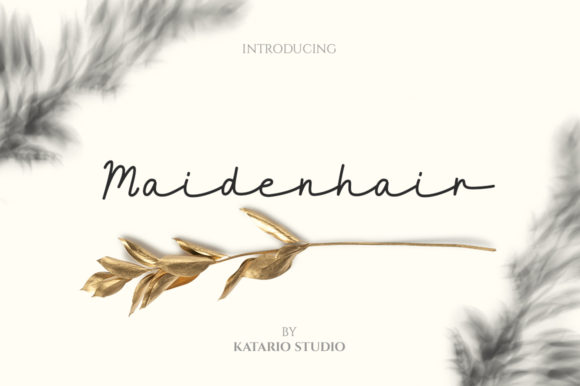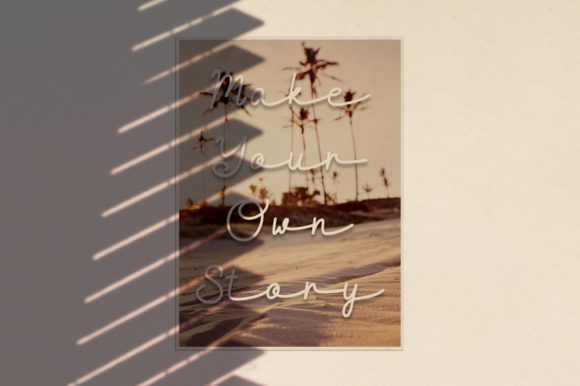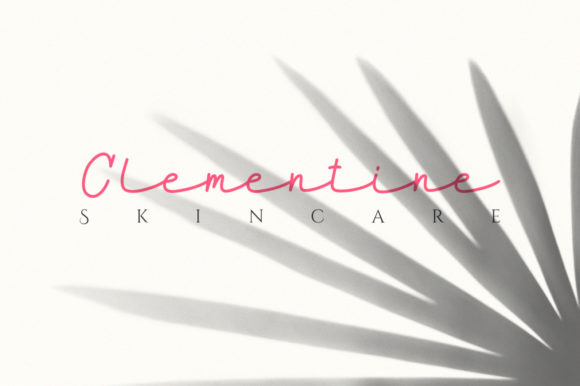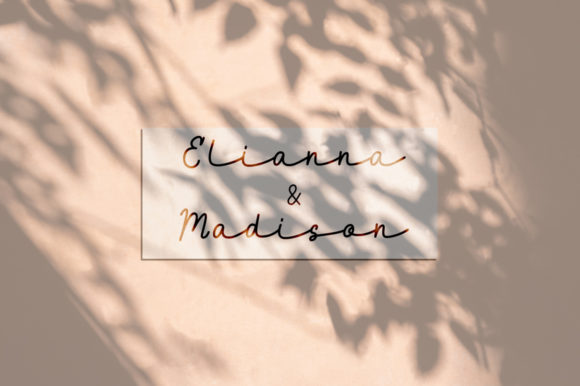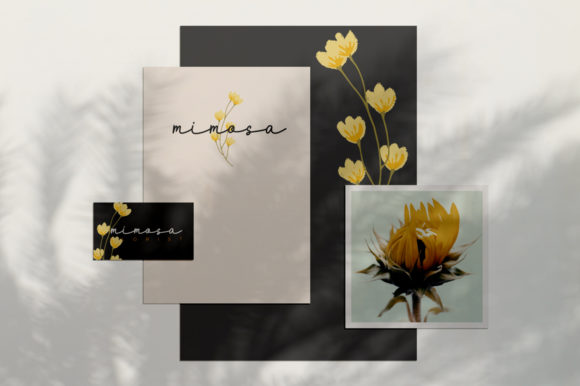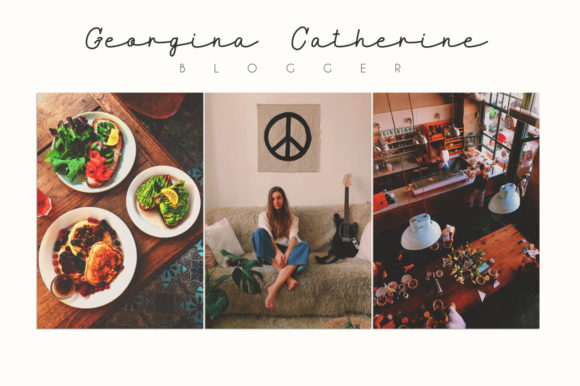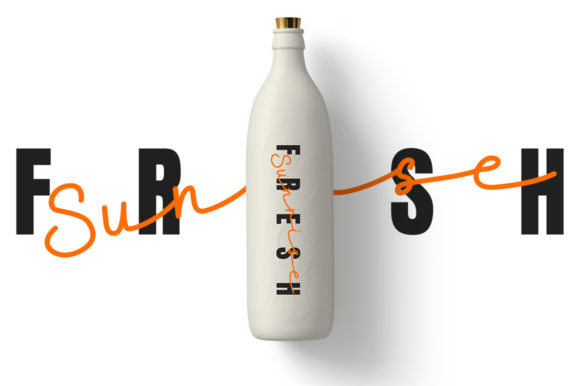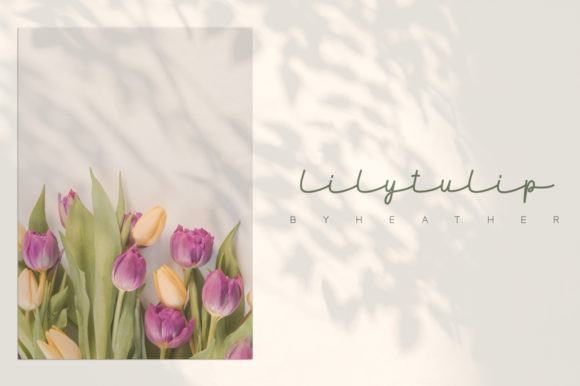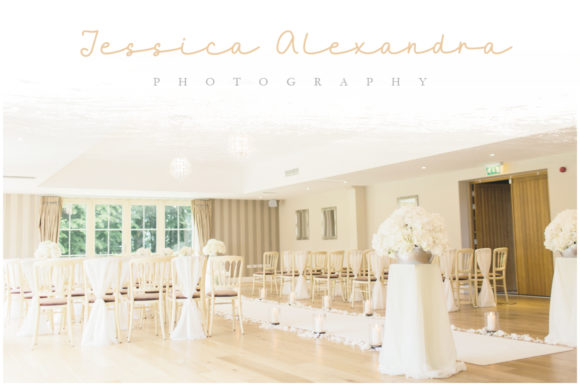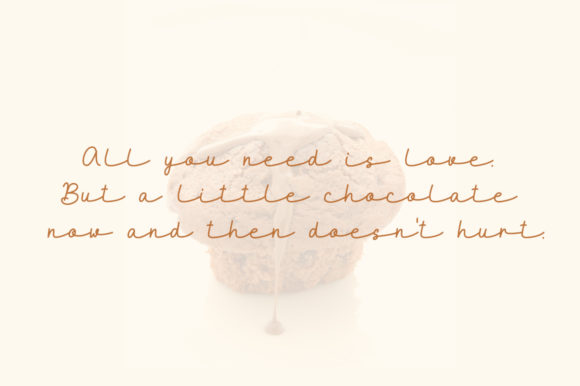
Maidenhair Font
About Maidenhair Font
Maidenhair is a stunning mono-line script font with a beautiful feel. Get inspired by its contemporary and organic charm.